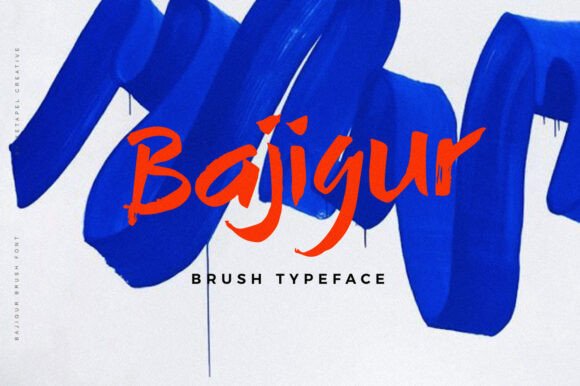
Bajigur Font: A Brush Display Typeface for Exciting Projects
Bajigur Font is a unique and exciting brush display typeface that has been designed to add a touch of creativity and flair to a wide variety of projects. With its bold and expressive characters, Bajigur Font is perfect for designers, artists, and crafters looking to add some personality to their work.
What is Bajigur Font?
Bajigur Font is a brush display typeface that has been carefully crafted to mimic the look and feel of traditional brush calligraphy. The font features bold, expressive characters with a unique and artistic flair. Each letter has been carefully designed to be distinct and legible, making it perfect for use in a variety of creative projects.
Key Features of Bajigur Font
Bajigur Font has a number of key features that make it an exciting and versatile choice for designers and crafters. Some of the key features of Bajigur Font include:
- Bold and Expressive Characters: Bajigur Font features bold and expressive characters that are perfect for adding a touch of personality to your projects.
- Brush-Like Texture: The font has a unique brush-like texture that gives it a hand-crafted, artistic feel.
- Wide Range of Uses: Bajigur Font is perfectly suited for a wide variety of projects, from creative crafts and DIY projects to professional design and marketing materials.
- Easy to Read: Despite its bold and expressive nature, Bajigur Font is easy to read and understand, making it perfect for use in titles, headings, and other display text.
Uses for Bajigur Font
Bajigur Font is a versatile and exciting typeface that can be used in a wide variety of projects. Some of the most popular uses for Bajigur Font include:
- Creative Crafts and DIY Projects: Bajigur Font is perfect for use in creative crafts and DIY projects, such as handmade cards, scrapbooking, and other paper crafts.
- Professional Design and Marketing Materials: The font is also well-suited for use in professional design and marketing materials, such as brochures, flyers, and social media graphics.
- Signage and Display Text: Bajigur Font is a great choice for use in signage and display text, such as store signs, billboards, and other outdoor displays.
- Digital Media: The font can also be used in digital media, such as video titles, social media graphics, and other online content.
Benefits of Using Bajigur Font
There are many benefits to using Bajigur Font in your projects. Some of the most significant benefits include:
- Unique and Creative Look: Bajigur Font has a unique and creative look that will help your projects stand out from the crowd.
- Easily Readable: Despite its bold and expressive nature, Bajigur Font is easy to read and understand, making it perfect for use in titles, headings, and other display text.
- Versatile: Bajigur Font is a versatile typeface that can be used in a wide variety of projects, from creative crafts and DIY projects to professional design and marketing materials.
- High-Quality Design: The font has been carefully designed to be of the highest quality, with clean lines and precise curves.
Tips for Using Bajigur Font
Here are a few tips for using Bajigur Font in your projects:
- Use it for Display Text: Bajigur Font is perfect for use in display text, such as titles, headings, and other prominent text.
- Pair it with Other Fonts: Bajigur Font can be paired with other fonts to create a unique and interesting look.
- Experiment with Colors and Textures: Bajigur Font can be used with a wide range of colors and textures to create a unique and eye-catching look.
- Keep it Simple: While Bajigur Font is a bold and expressive typeface, it’s best to keep your design simple and clean to avoid overwhelming the viewer.
Bajigur Font: Access Download Now
| Font Name | Bajigur Font |
| Author | ketapelcreative |
Bajigur Font is a unique and exciting brush display typeface that is perfectly suited for a wide variety of projects. With its bold and expressive characters, Bajigur Font is perfect for designers, artists, and crafters looking to add some personality to their work. Whether you’re working on a creative craft project or a professional design project, Bajigur Font is a great choice.
- What is Bajigur Font? Bajigur Font is a brush display typeface with exciting characters.
- What is Bajigur Font used for? Bajigur Font is perfectly suited for a wide variety of projects, including creative crafts and DIY projects, professional design and marketing materials, signage and display text, and digital media.
- Is Bajigur Font easy to read? Yes, despite its bold and expressive nature, Bajigur Font is easy to read and understand.